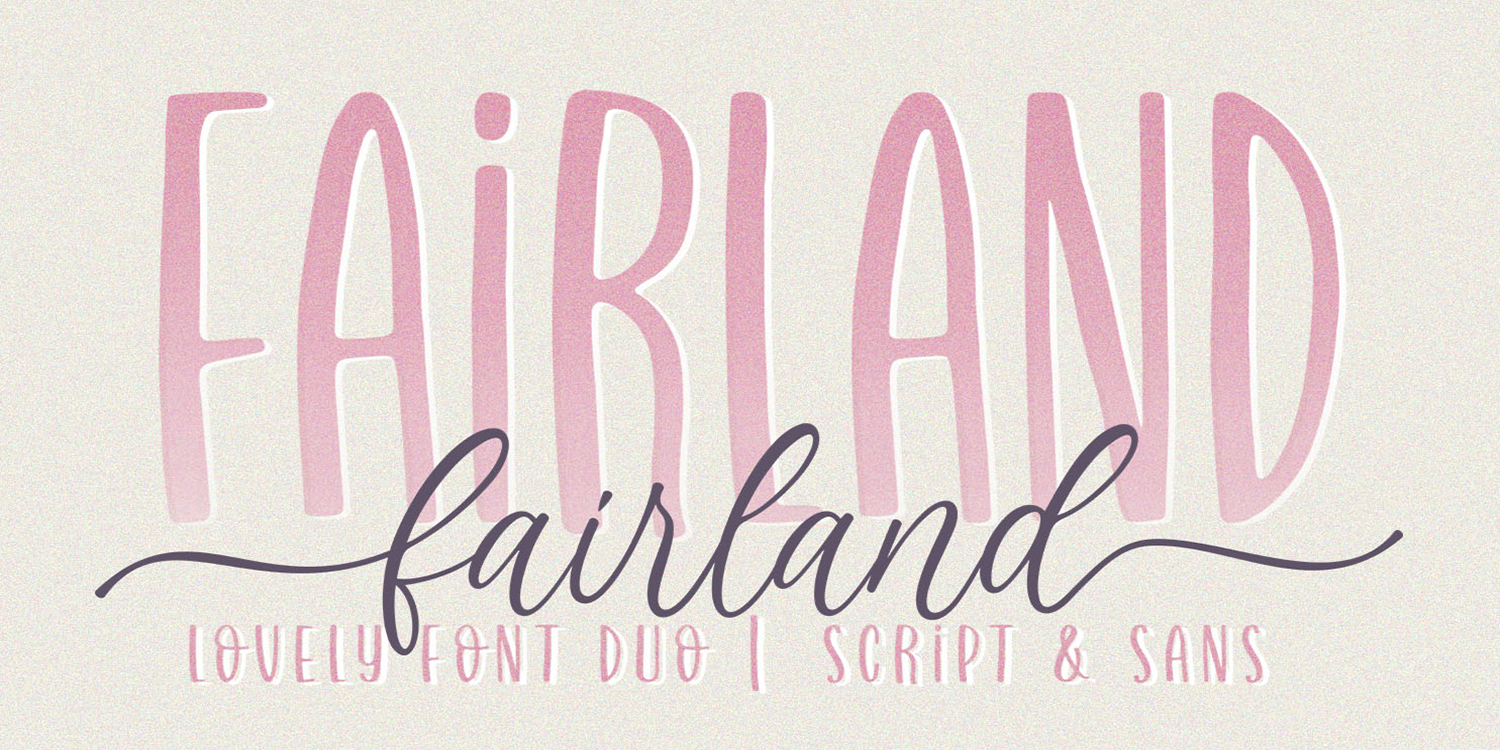
Fairland Script Font is perfect for wedding invitations, romantic greeting cards, boutique branding, feminine lifestyle blogs, beauty product packaging, fairy tale book covers, vintage-inspired designs, personal stationery, handcrafted business logos, and enchanting social media graphics. This whimsical typeface excels in projects that require romance, elegance, and storytelling charm.
What makes Fairland Script Font exciting is its enchanting ability to transport readers into a world of fairy tale romance through delicately crafted letterforms that dance across the page like magical script. The font features flowing connections, graceful ascenders, and charming flourishes that evoke feelings of wonder, nostalgia, and timeless beauty. Its storybook character captures the essence of dreamy landscapes and romantic adventures, making it perfect for brands that want to create emotional connections and inspire imagination.
Fairland Script Font includes comprehensive font families such as Regular, Bold, Light, Italic, Swash, and Ornamental variants. Each family member maintains the distinctive fairy tale elegance while offering different decorative elements and stylistic approaches to enhance creative storytelling and romantic design applications.
This premium script typeface serves as an exceptional choice for designers working in wedding industry, lifestyle branding, and creative storytelling sectors. Fairland Script Font Free Download provides outstanding value for wedding planners, lifestyle bloggers, and creative agencies specializing in romantic and whimsical branding. The font's enchanting appeal makes it particularly suitable for children's literature, romantic novels, vintage collections, and dream-inspired marketing campaigns.
Whether you're designing invitations for magical celebrations, creating brand identity for fairy tale-inspired businesses, or developing marketing materials for romantic products, Fairland Script Font brings the perfect touch of enchantment and elegance to make every project feel like a beautiful story.